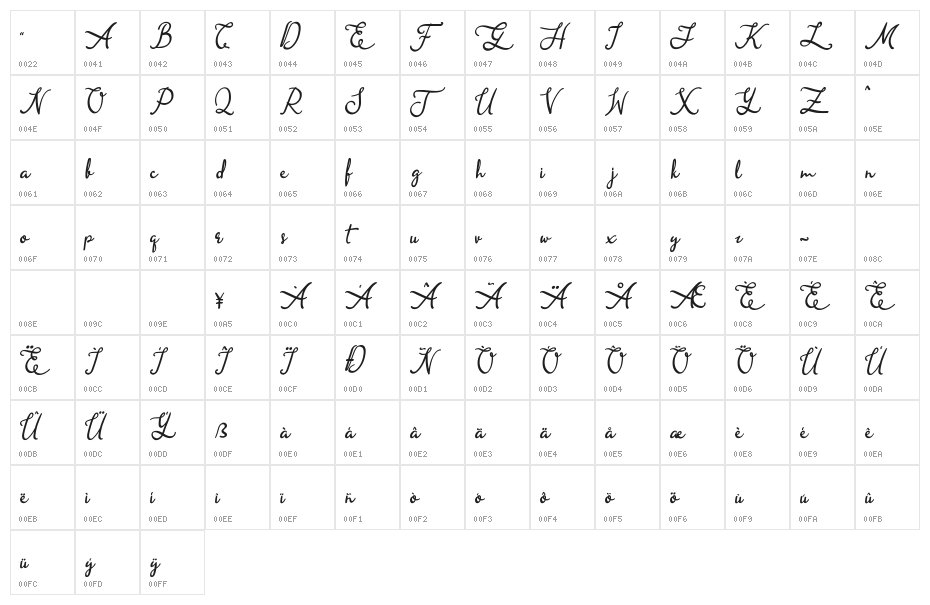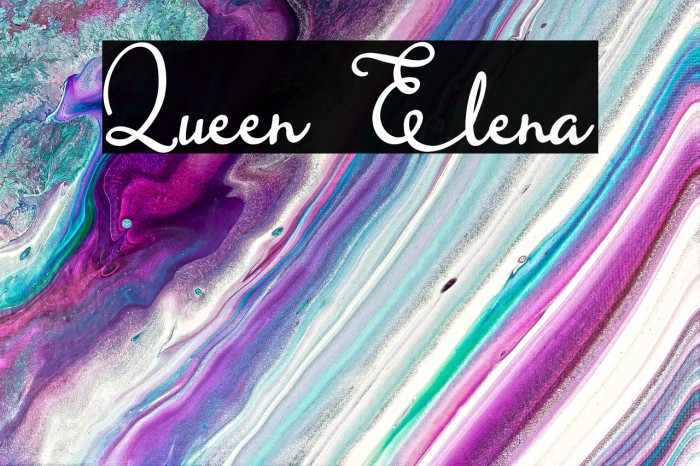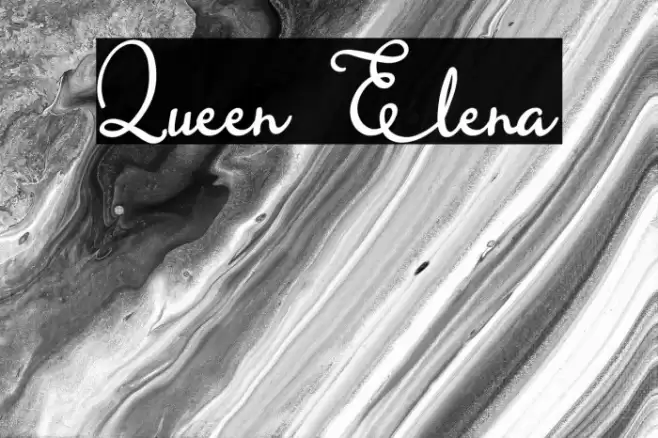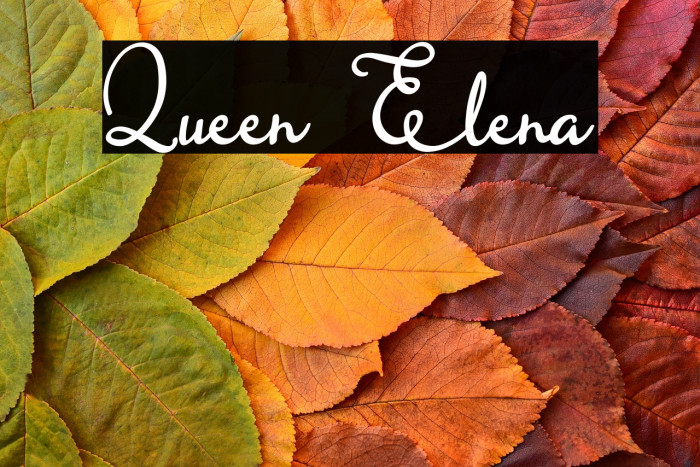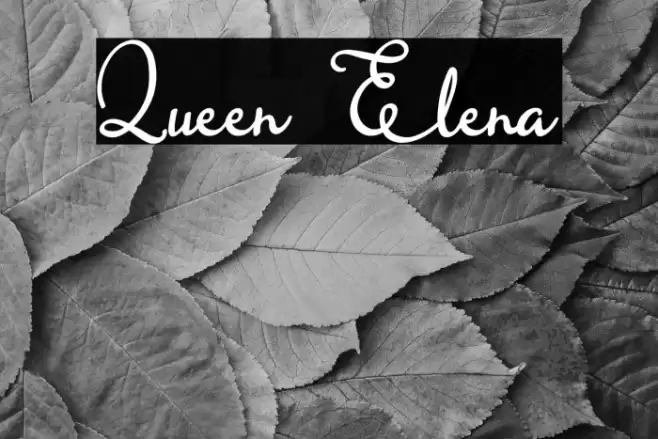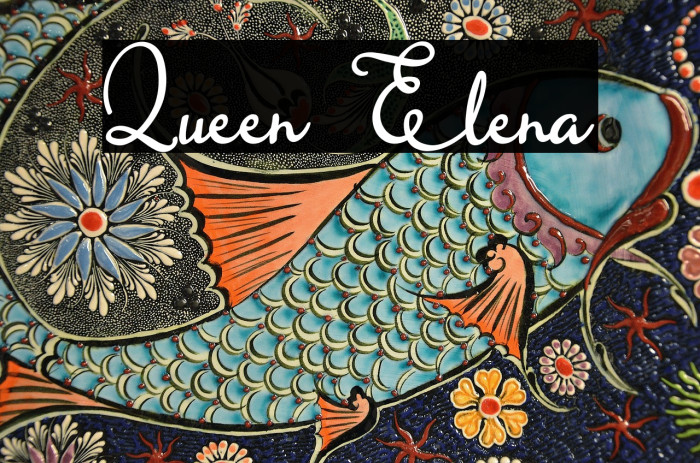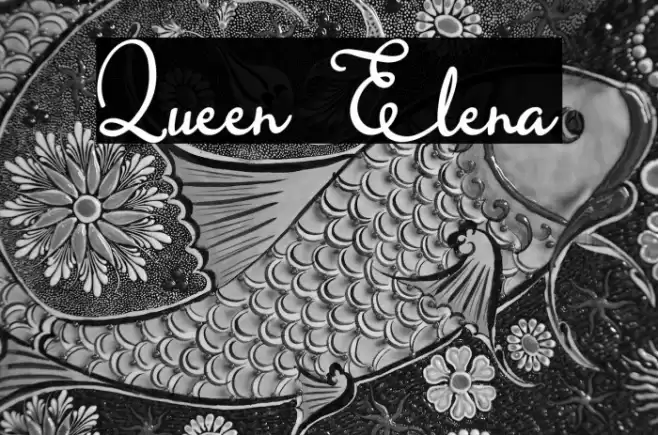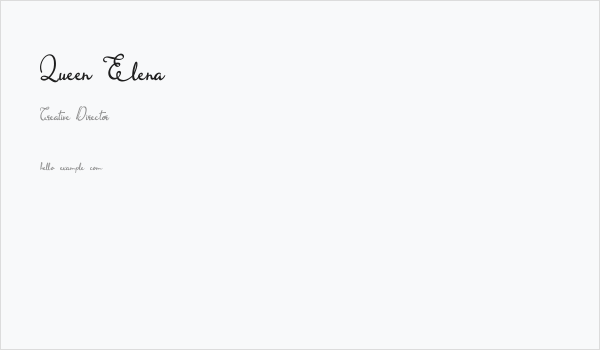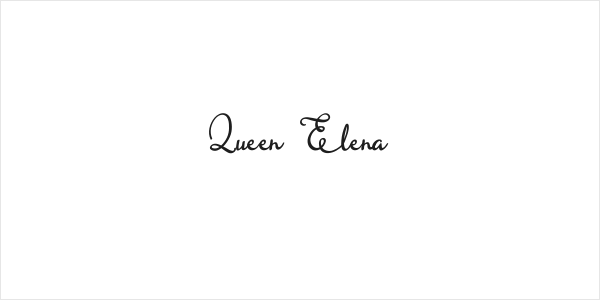
Queen Elena Font
Queen Elena Description
This elegant script font features a flowing, cursive style with intricate loops and flourishes. The uppercase letters are particularly ornate, with sweeping lines that convey a sense of sophistication and grace. The lowercase letters maintain a consistent style, offering a smooth and connected appearance that enhances readability while retaining an artistic flair. The font's overall design is reminiscent of classic calligraphy, making it suitable for projects that require a touch of elegance and refinement. The characters are well-spaced, ensuring clarity and legibility, even with the decorative elements.